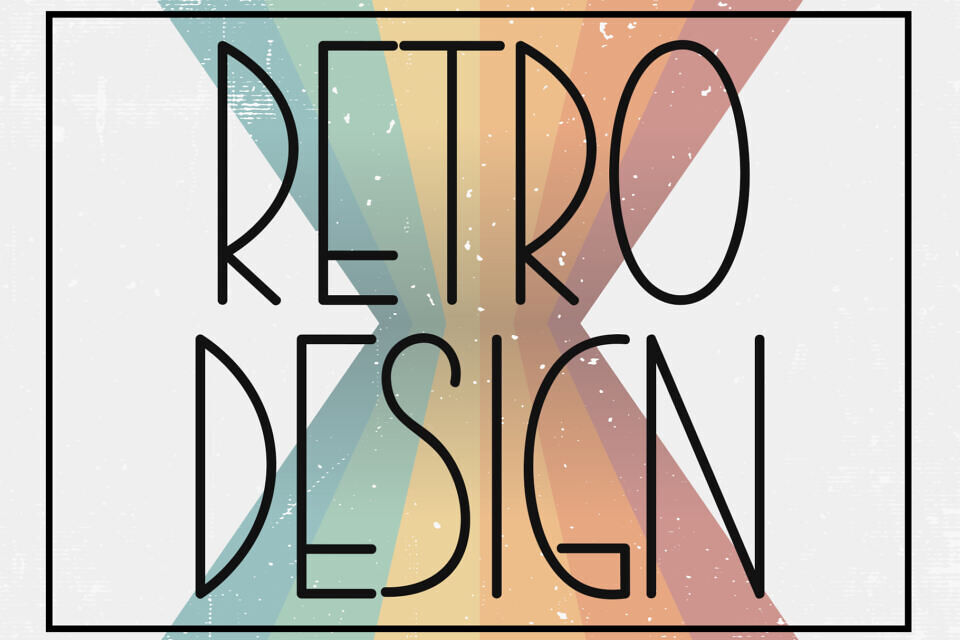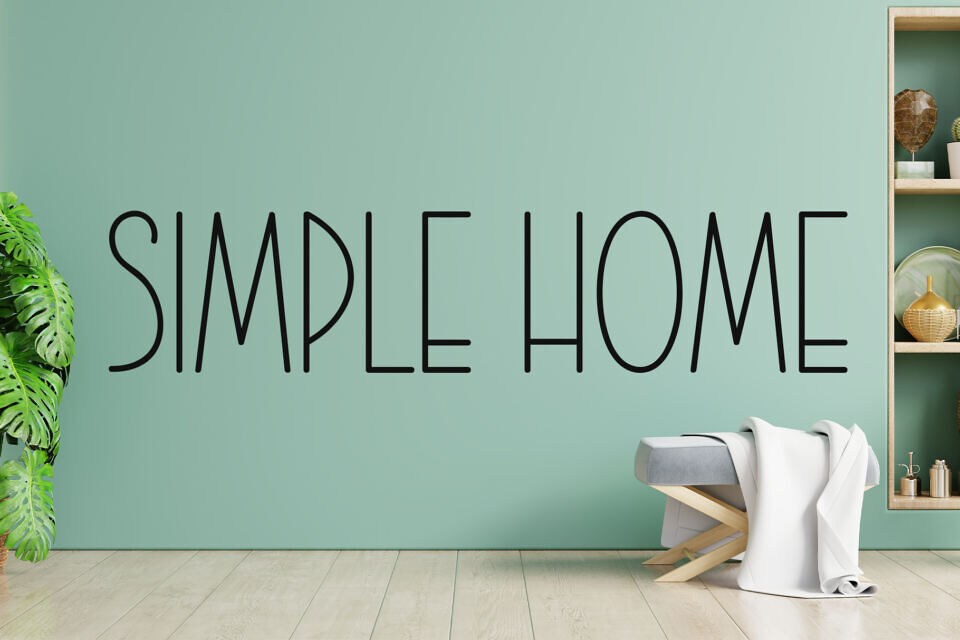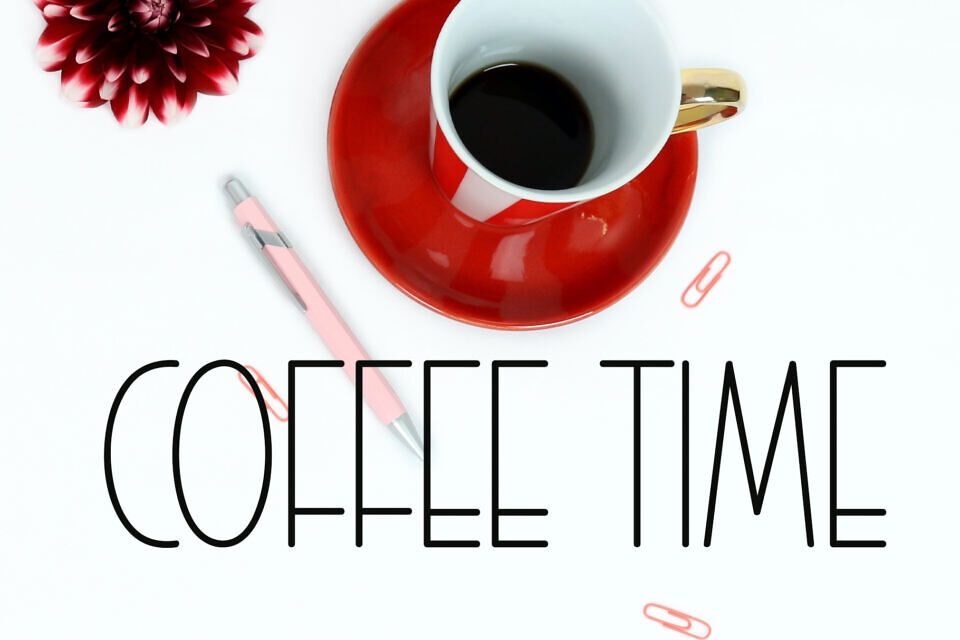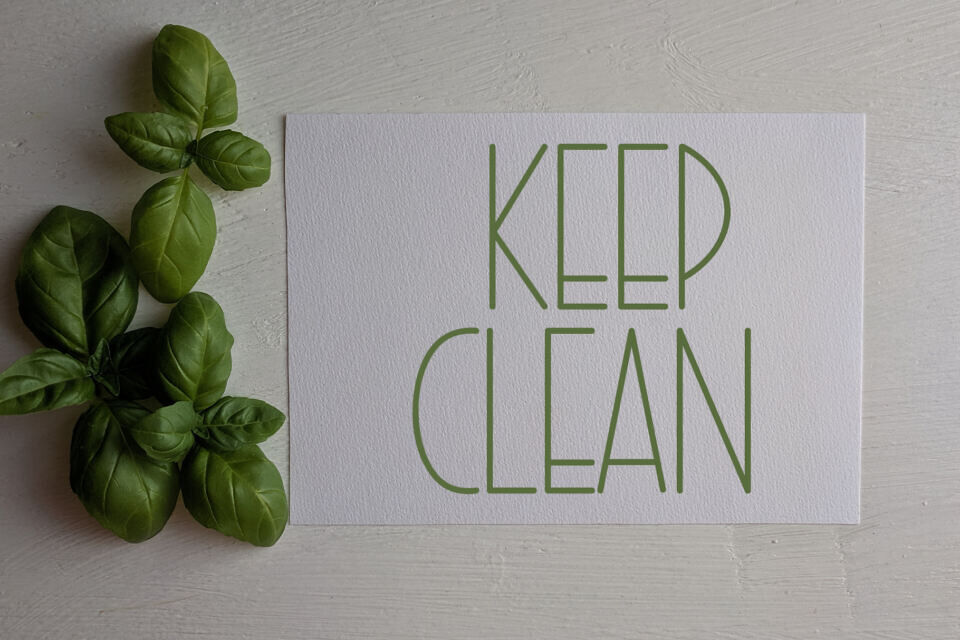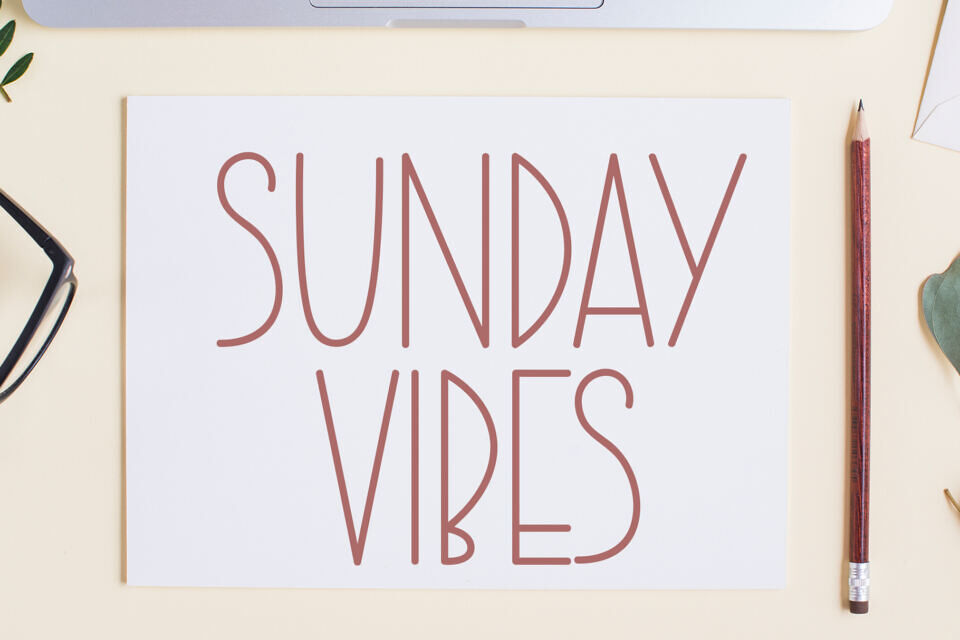
Retro Design is a stylish handwritten display font with a contemporary atmosphere and impeccable form, inspired by a timeless classic calligraphy. Balanced and varied, this font was designed to enhance the beauty of your projects.